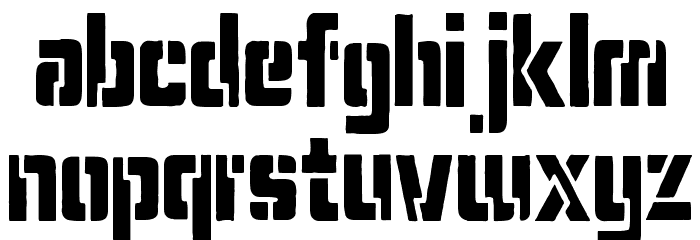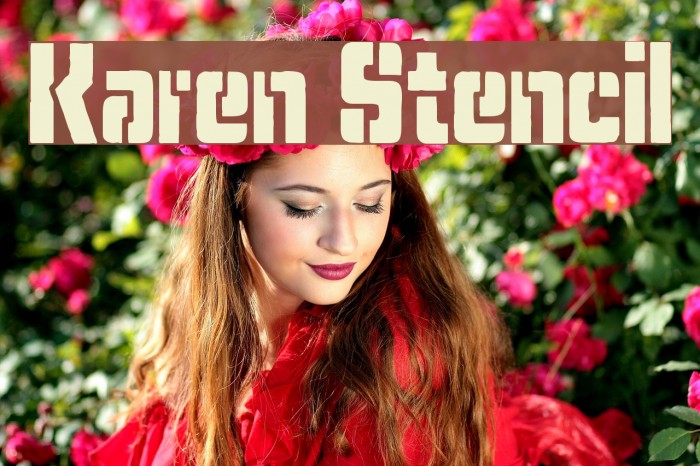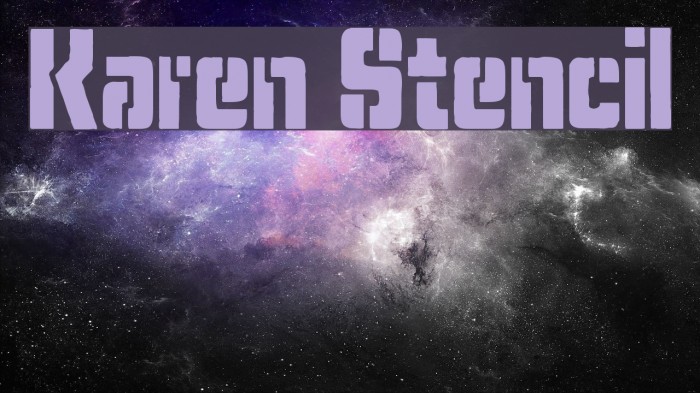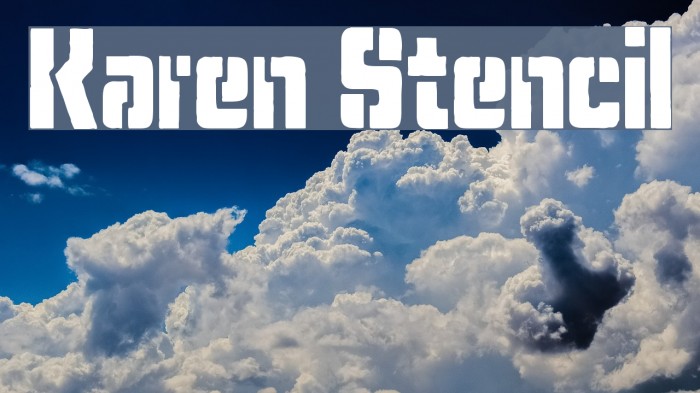
Karen Stencil Font
This font features a bold, stencil-like design with distinct cutouts that create a rugged and industrial appearance. The uppercase and lowercase letters maintain a consistent width, giving the font a uniform look. The characters are blocky and geometric, with sharp angles and straight lines that enhance its mechanical feel. The numbers and special characters follow the same design principles, ensuring cohesion across all glyphs. This font is ideal for projects that require a strong, impactful presence, such as posters, signage, or branding materials that aim to convey strength and modernity.
A bold, stencil-style font with a rugged, industrial look.
- Proposed Projects: Ideal for posters, signage, branding materials, and any project needing a strong, industrial aesthetic.
- Overall Style: Industrial, Modern
- Use Case: Headlines, Logos, Signage